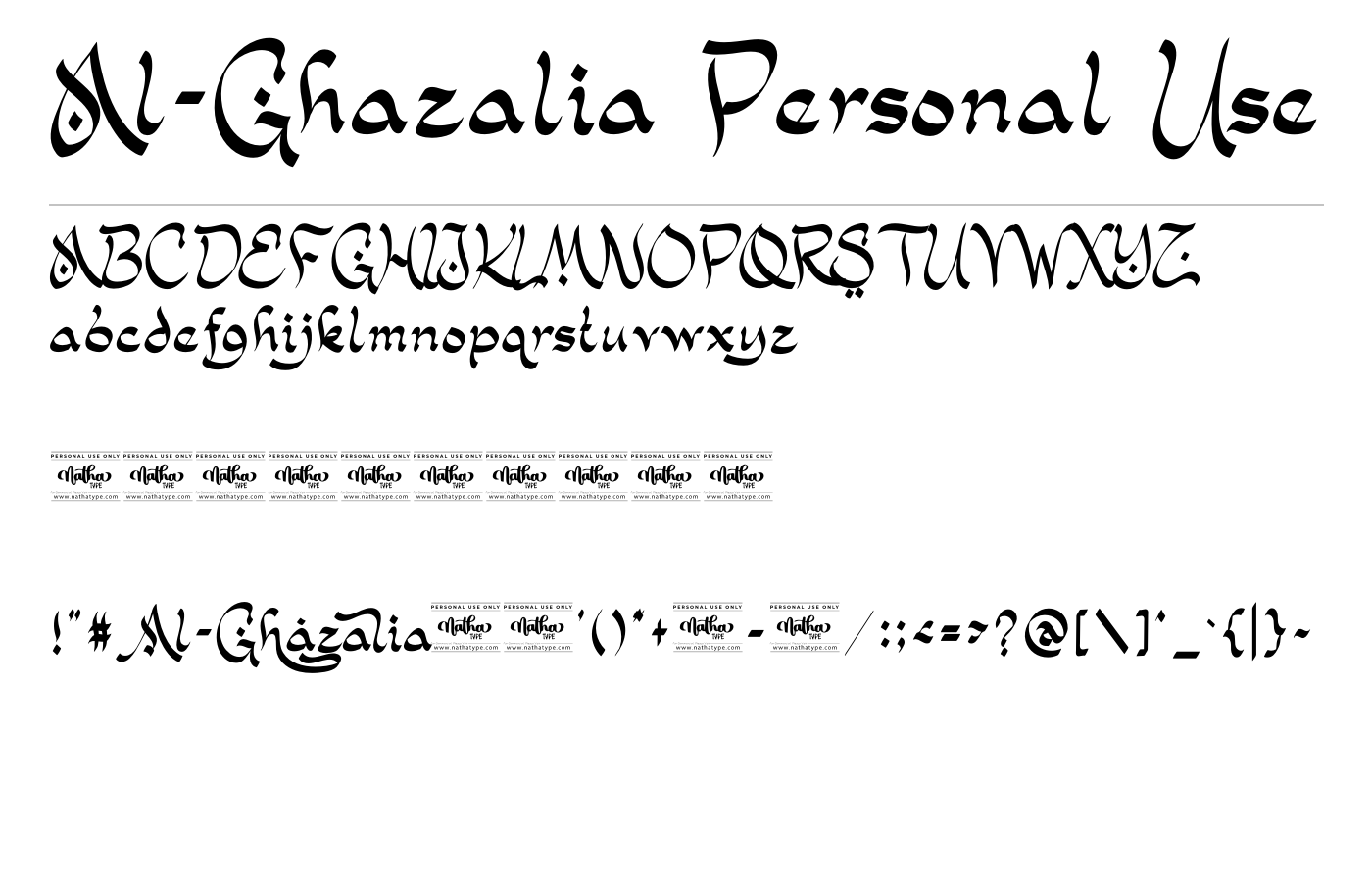
Al-Ghazalia Personal Use is a distinctive handwritten serif font with artistic, calligraphic influences that blend elegance and cultural flair. Its slightly condensed letterforms, moderate contrast, and unique flourishes create a decorative yet readable style ideal for adding a personal and exotic touch to branding, invitations, or headlines. This font works best in creative projects where a sophisticated, handcrafted look is desired without sacrificing clarity.
Al-Ghazalia Personal Use Font
About Al-Ghazalia Personal Use Font
| Font family | Al-Ghazalia Personal Use Font |